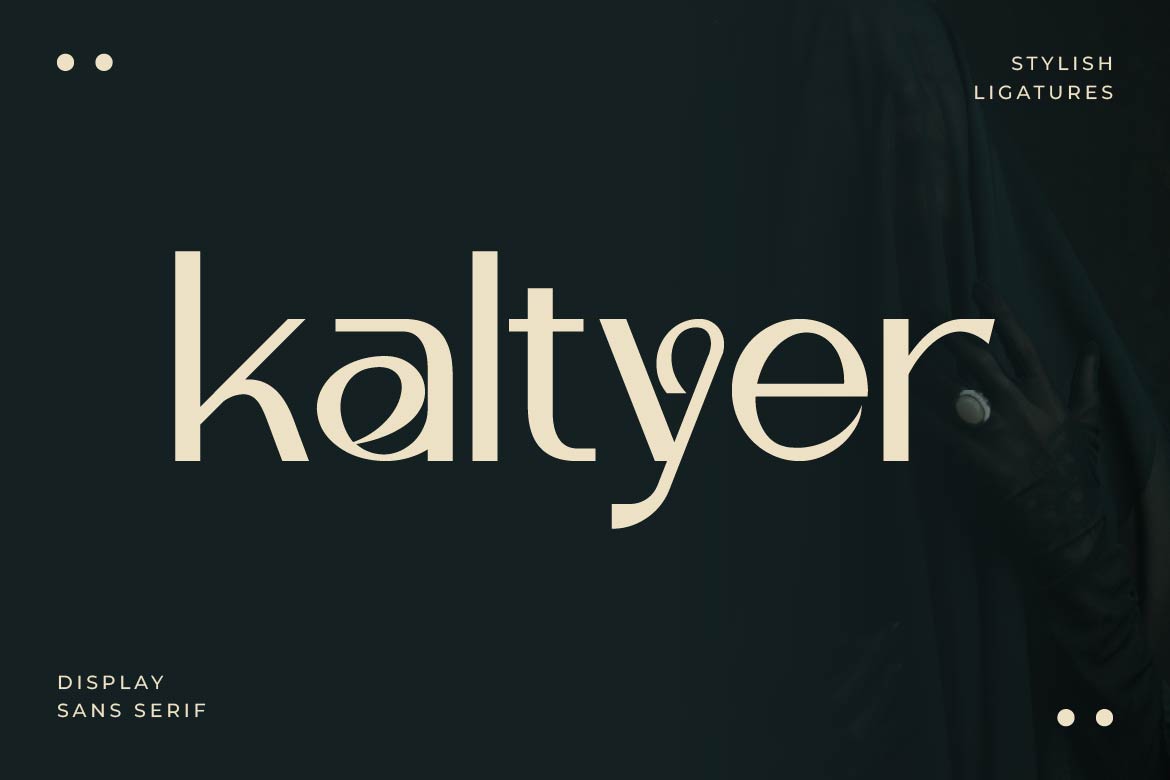
- Kaltyer – Stylish Display Typeface
Kaltyer is a stylish display typeface designed to bring elegance, confidence, and contemporary character to modern design. Featuring refined letterforms, balanced proportions, and a distinctive display style, Kaltyer creates typography that is both sophisticated and visually striking.
Perfect for logos, branding, fashion labels, lifestyle brands, packaging, editorial layouts, social media campaigns, and premium marketing materials, Kaltyer delivers exceptional presence while maintaining clean readability. Its modern aesthetic makes it an excellent choice for designers looking to create timeless yet trend-forward visual identities.
Whether you’re building a luxury brand, launching a creative campaign, or designing eye-catching headlines, Kaltyer adds style, personality, and premium appeal to every project.
Kaltyer isn’t just a typeface—it’s a stylish signature for brands that value elegance and modern design.